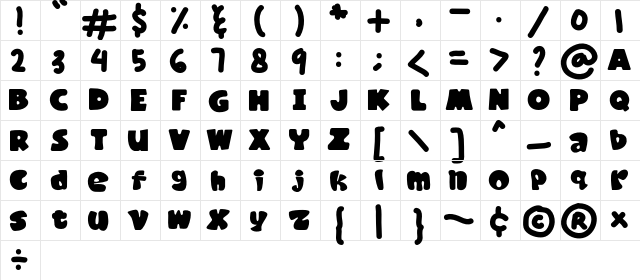
Kaiden Regular Free Font
Kaiden Regular
Design Context for Kaiden
Kaiden is a composed and adaptable typeface that performs quietly and consistently across a wide range of design contexts.